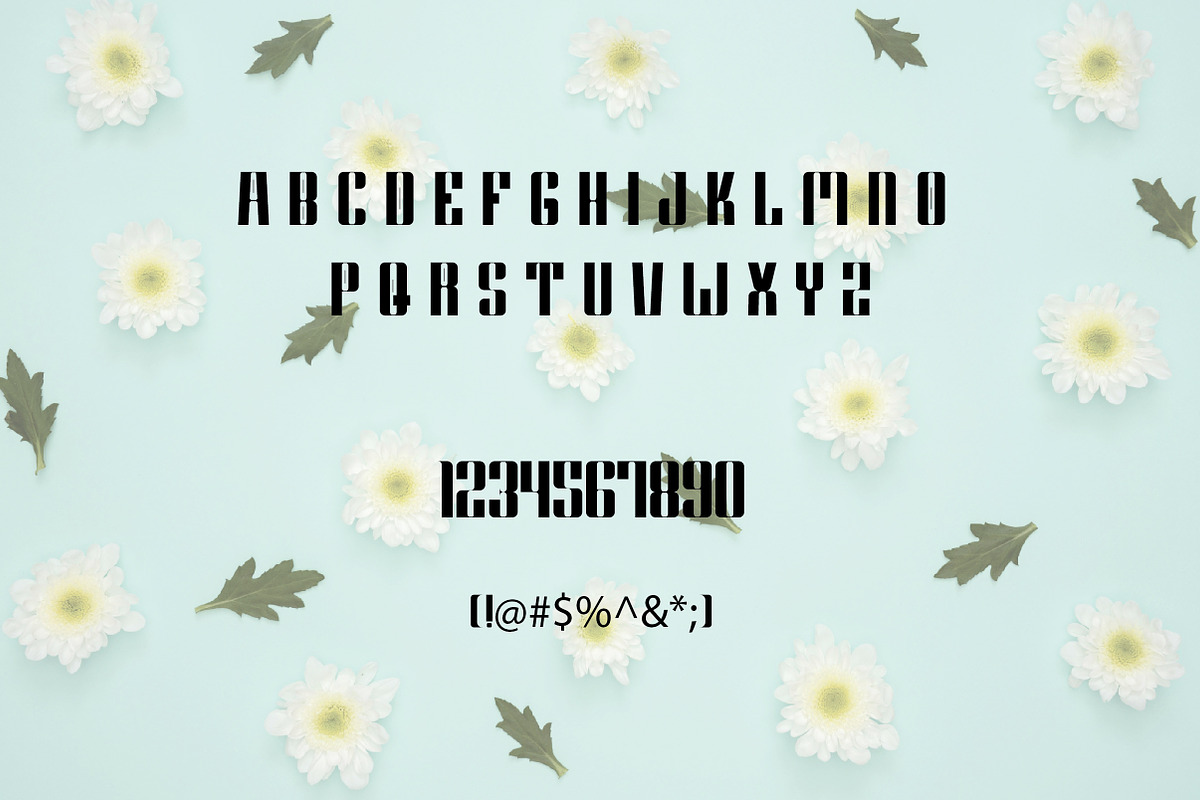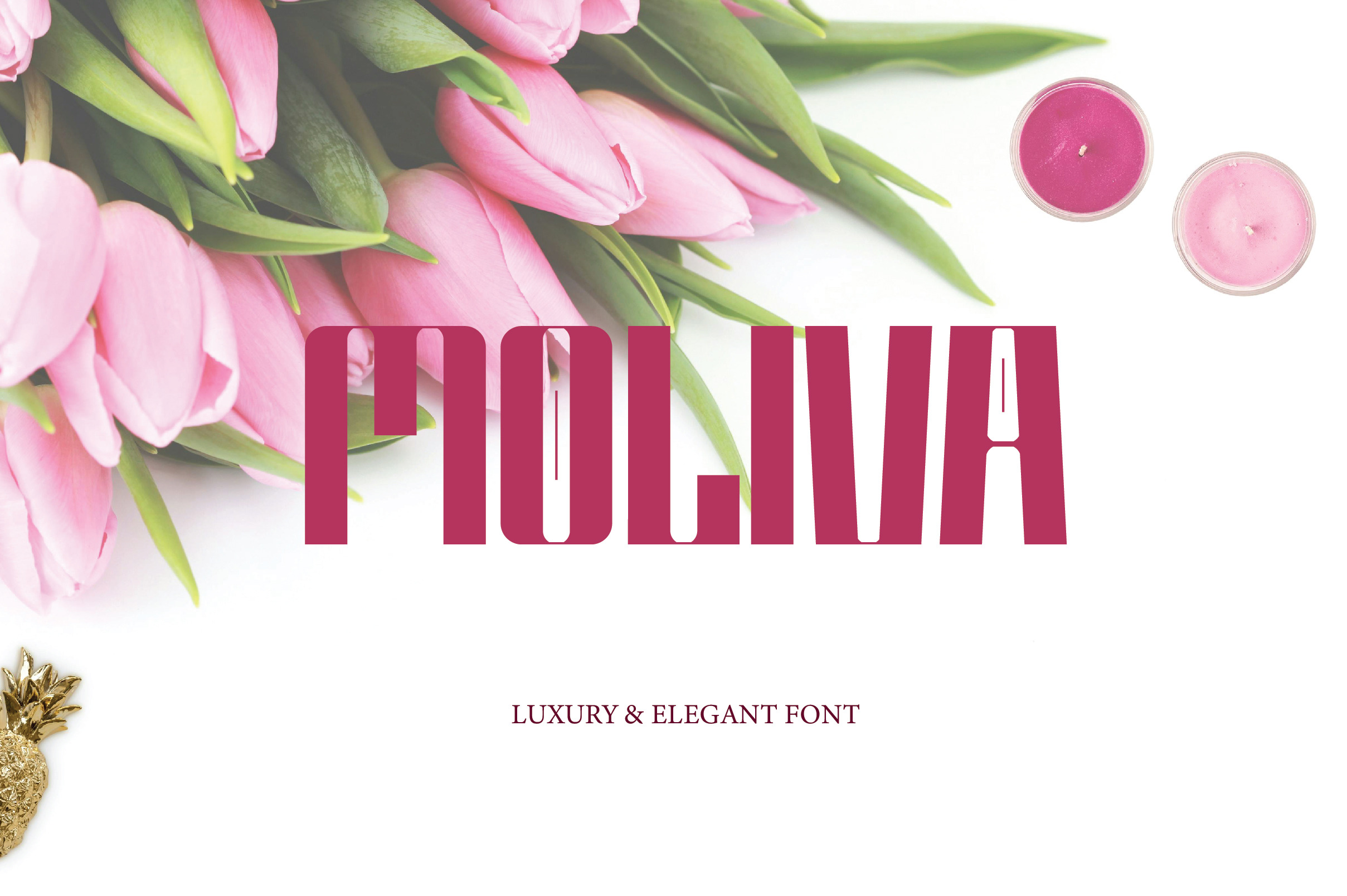
Moliva | Modern Sans Serif Font
Moliva is a strong and modern bold sans serif typeface designed to make an impact. With thick strokes, clean shapes, and confident structure, Moliva Bold is perfect for headlines, branding, posters, logos, and any design that needs bold visual presence.
Its sharp and professional look brings both strength and clarity, making it a great choice for digital and print projects. Whether used in large titles or standout branding, Moliva Bold ensures your message is seen and remembered.
Moliva Bold is the ideal font for designers seeking a modern, eye-catching sans serif with strong character.